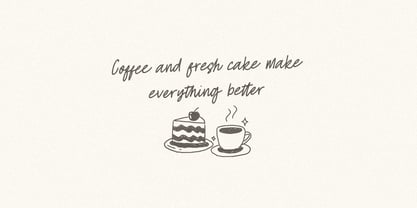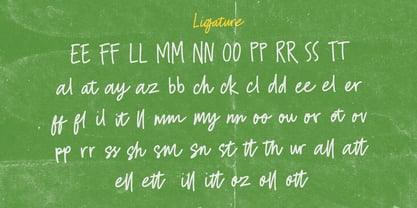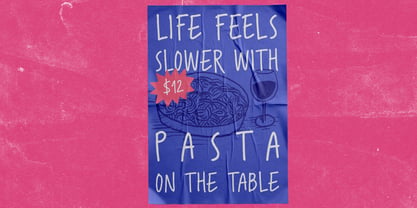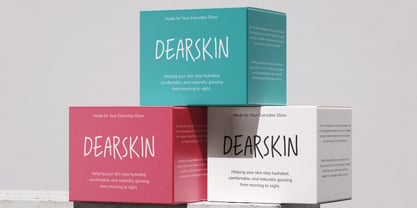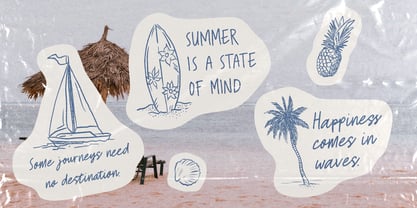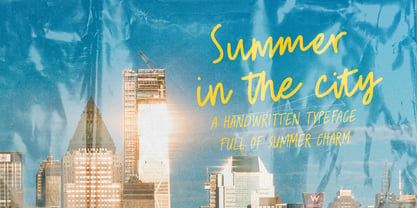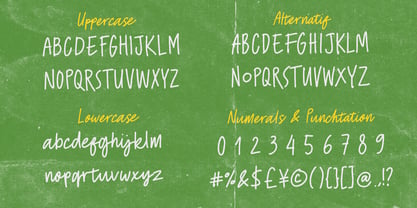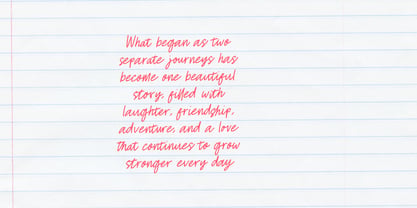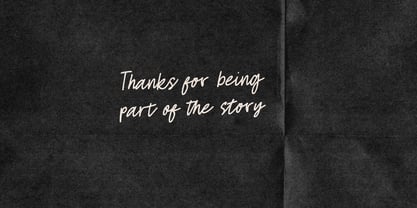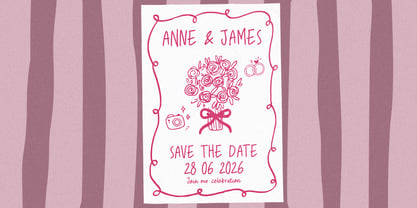
Summer In The City
by Negara Studio
The Summer In The City Font Family was designed by Anugerah Negara and published by Negara Studio. Summer In The City contains 2 styles and family package options. More about this family
Summer in the City
Summer in the City is a casual handwritten font inspired by slow afternoons, spontaneous road trips, and the little moments that turn into lasting memories. Designed with a natural flow and an effortless feel, it brings a warm, personal touch to any creative project while remaining clean and highly readable.
Whether you're creating branding, packaging, wedding stationery, social media content, quotes, café menus, or lifestyle designs, Summer in the City adds an authentic handwritten character that feels relaxed and inviting.
To give you more creative flexibility, this typeface comes with two styles:
• Regular – smooth, natural, and perfect for everyday designs.
• Oblique – a slanted version with a little more movement and personality, ideal for creating dynamic and expressive layouts.
Made for beautiful stories, everyday moments, and designs that feel a little more personal.